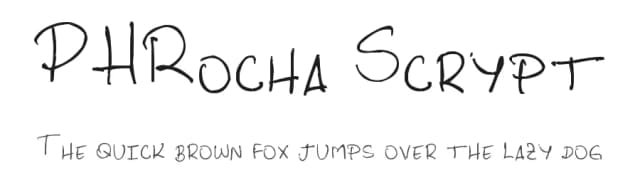
About PHR Scrypt II Font
PHR Scrypt II is a script & handwritten font designed by Pedro Rocha. It includes 115 glyphs, a regular weight, TTF (TrueType) format, and 107 languages. PHR Scrypt II is free to download; check the license details on this page before commercial use. Script & handwritten fonts like PHR Scrypt II work best for wedding invitations, greeting cards, signatures, and elegant branding.
PHR Scrypt II Font is a script font that shines as a display or heading face. Pair it with a clean sans-serif or serif font for body text β the contrast creates a clear hierarchy while the two styles stay balanced and easy to read.
PHR Scrypt II Font